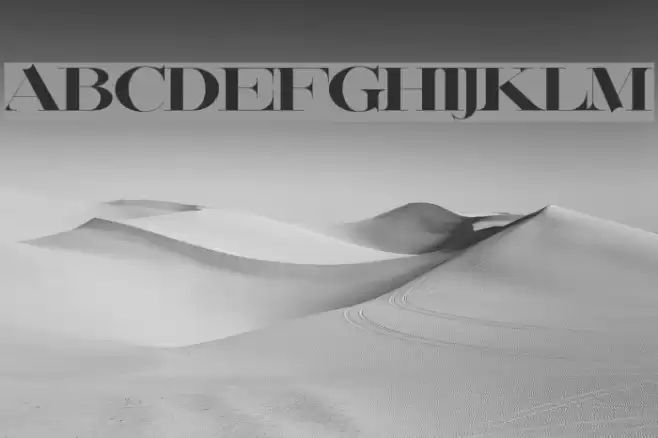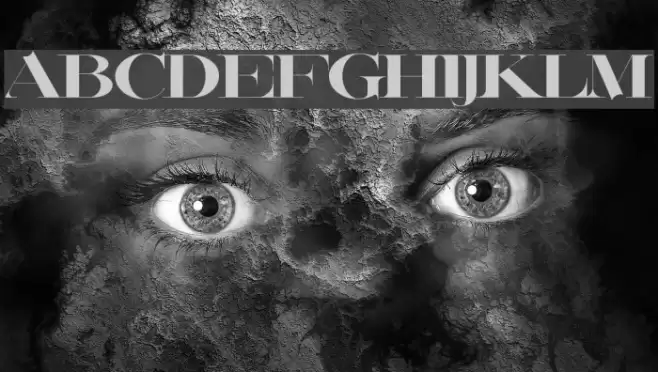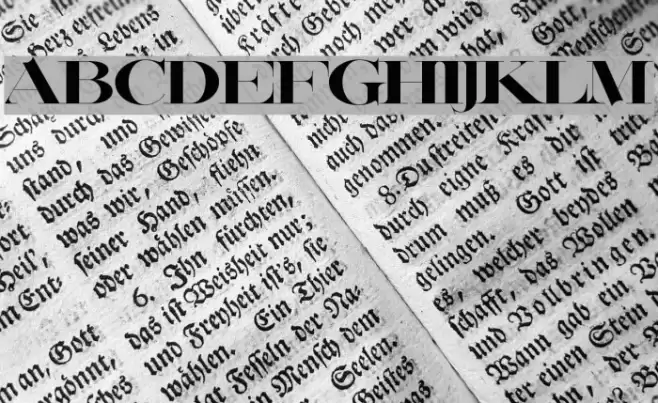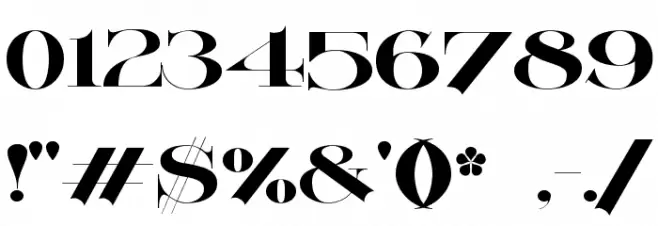
Lafitte Font
Lafitte Description
This font features a striking and bold design with high contrast between thick and thin strokes, creating a dramatic and elegant appearance. The characters have a distinctive flair, with sharp serifs and unique cuts that add a sense of sophistication and style. The uppercase letters are particularly eye-catching, with their bold presence and intricate detailing. The numerals and special characters maintain the same level of detail and elegance, ensuring consistency throughout. This font is ideal for making a strong visual impact, combining traditional serif elements with a modern twist.
A bold, high-contrast serif font with dramatic and elegant detailing from Uncategorized fonts.
- Proposed Projects: Ideal for luxury branding, editorial design, high-end packaging, and fashion magazines.